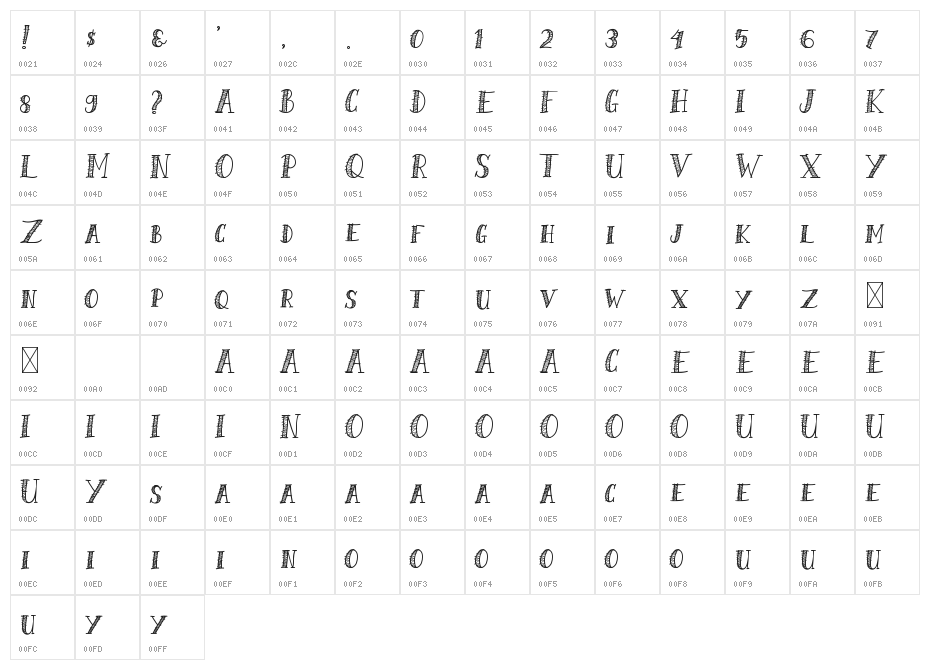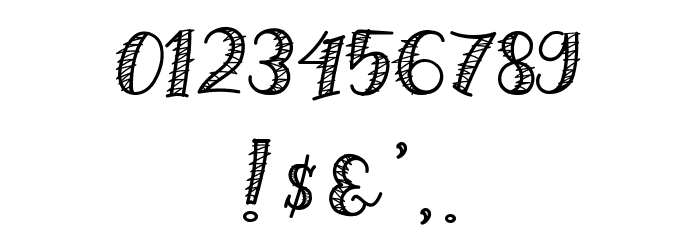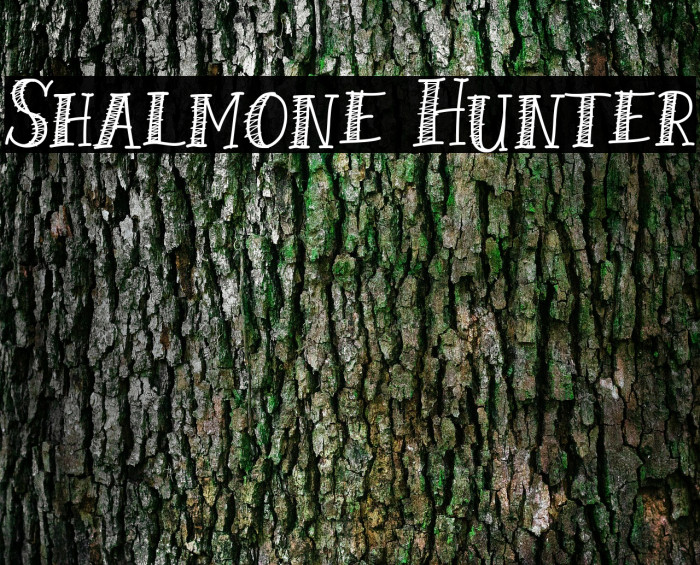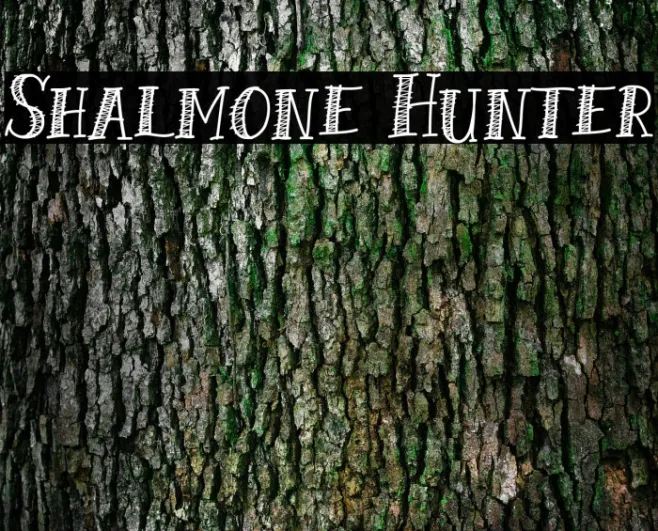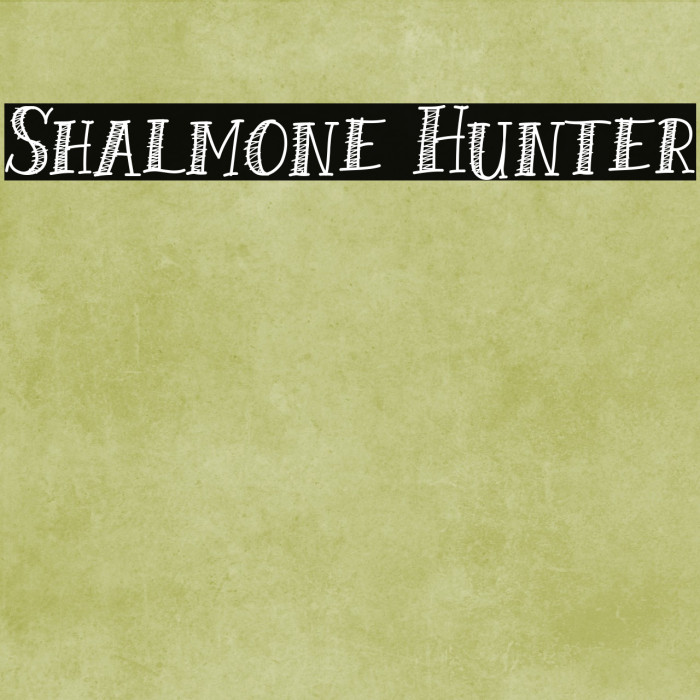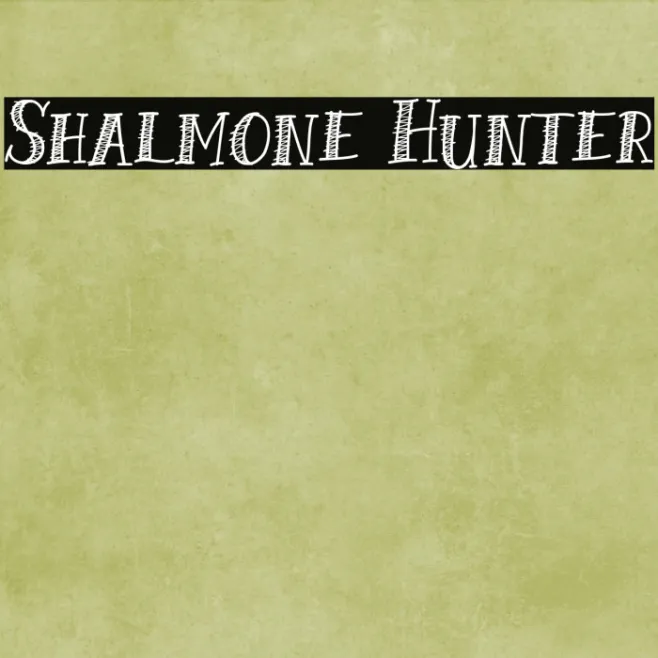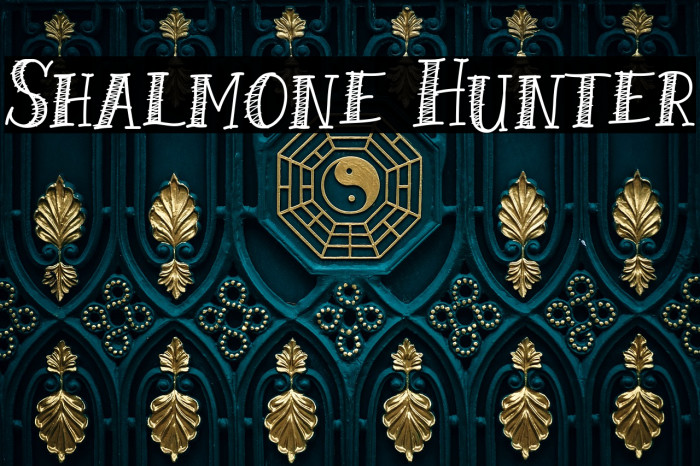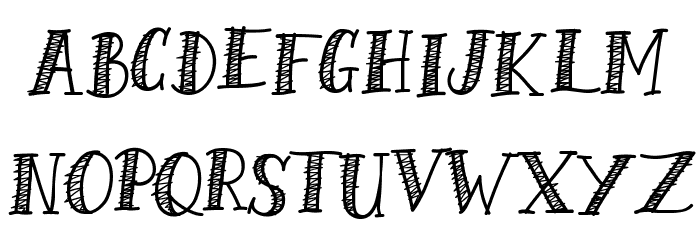
Shalmone Hunter Font
Shalmone Hunter Description
This font features a playful and artistic style with a hand-drawn appearance. The characters are bold and slightly irregular, giving them a whimsical and dynamic look. The strokes are filled with diagonal lines, creating a textured effect that adds depth and interest. The uppercase and lowercase letters maintain a consistent style, while the numbers and special characters complement the overall design. This font's unique character makes it suitable for creative projects that require a touch of personality and flair.
| Proposed Projects | Ideal for children's book covers, playful branding, greeting cards, and creative posters. |